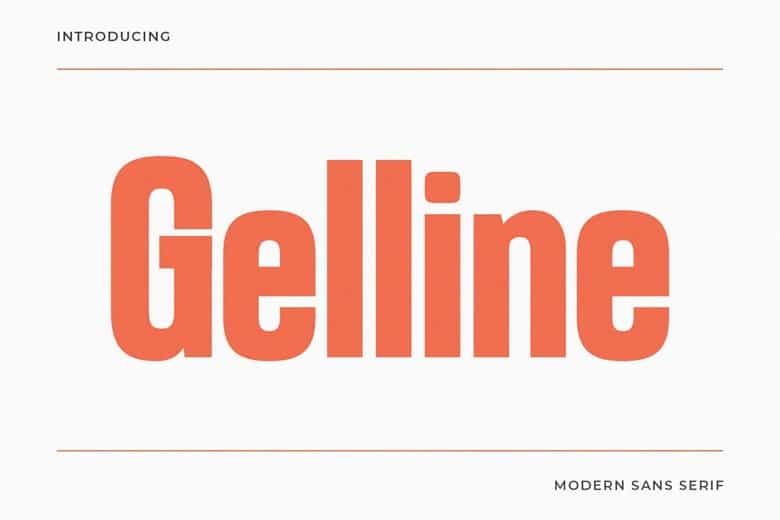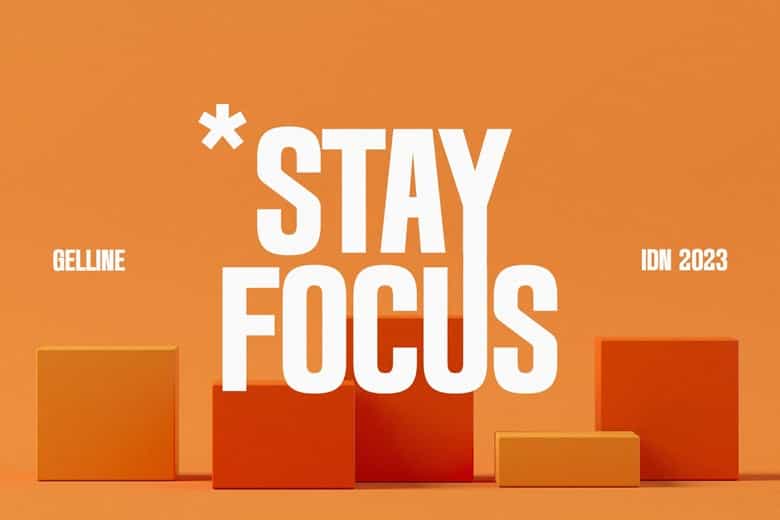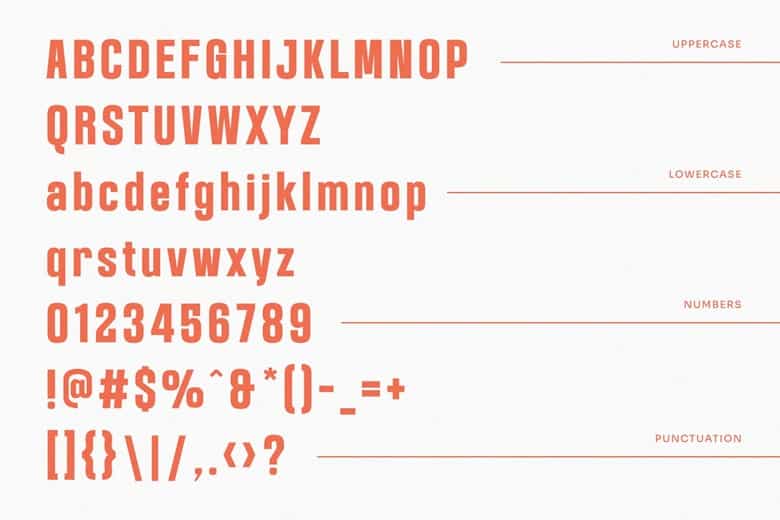
Gelline is a modern and elegant sans serif typeface that is useful in a variety of situations. The clean lines and simplicity of the design make it easy to read as well as quite suitable for use in body text. It is great for headlines and titles too, as it is bold weight works on the page.